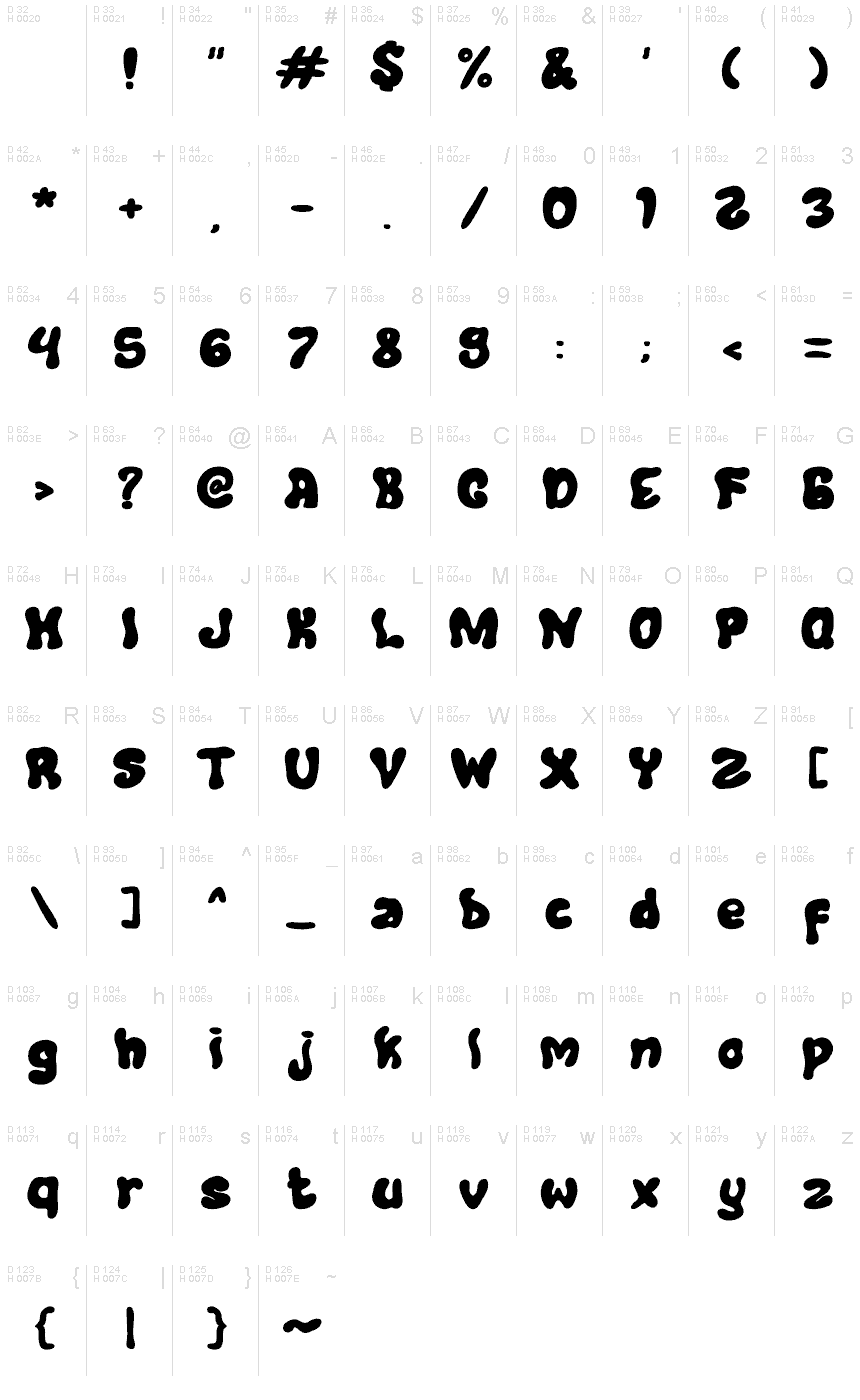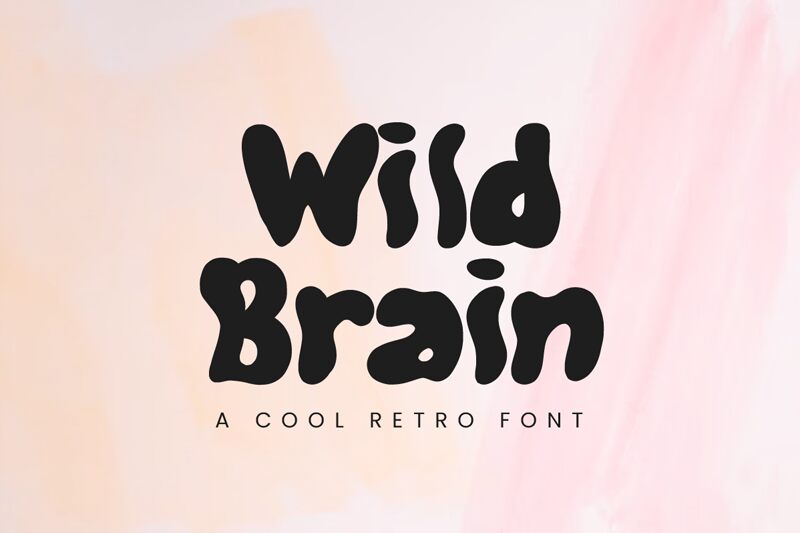
Wild Brain
Wild Brain font by Muhammad Yafinuha of Masyafi Studio is a display font with a groovy style and a playful casual look. Its letters are bold, organic, bubbly, and whimsical making them impossible to miss. The overall visual appearance puts emphasis on styles from the past with trippy elements but an elegant modern approach at the same time.
The font and each of its joyful characters can be used on different projects to explore their full potential. Poster designs, magazine/album covers, headlines, social media posts graphics, backgrounds patterns/illustrations, scrapbook pages designs. Apparel design ideas like T-shirts or any type of other printed materials such as greeting cards or invitations for events with fun bubbles content (kids’ birthdays for example).